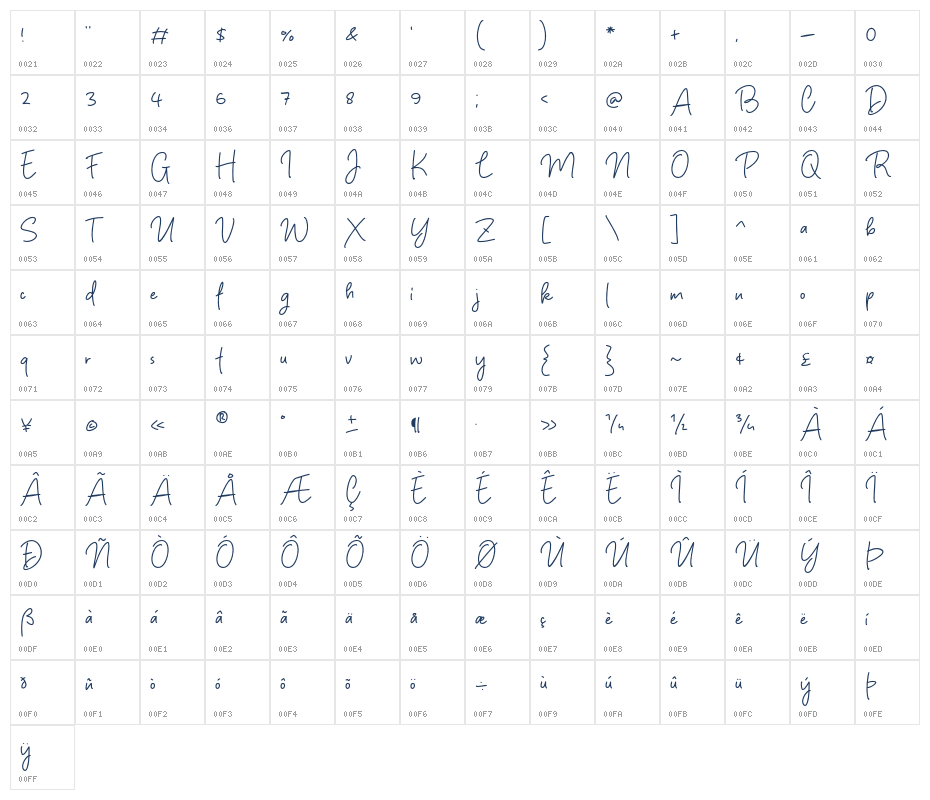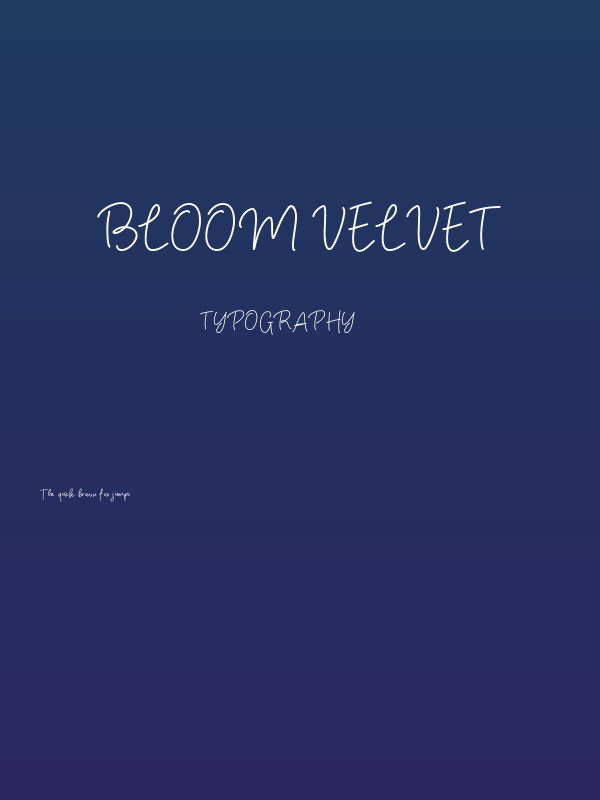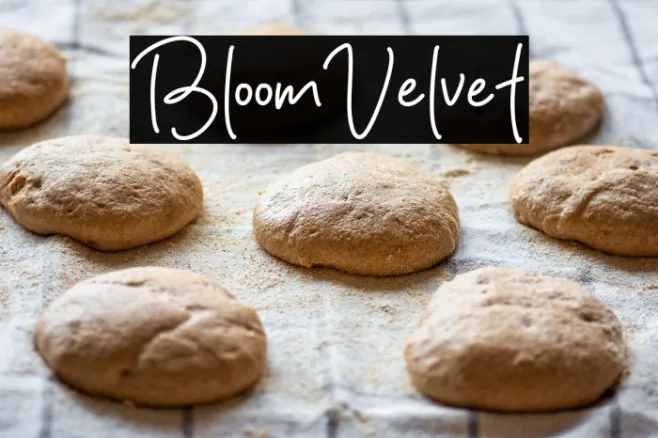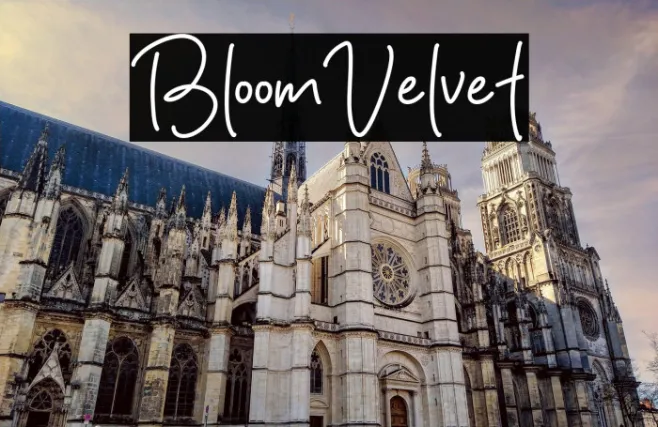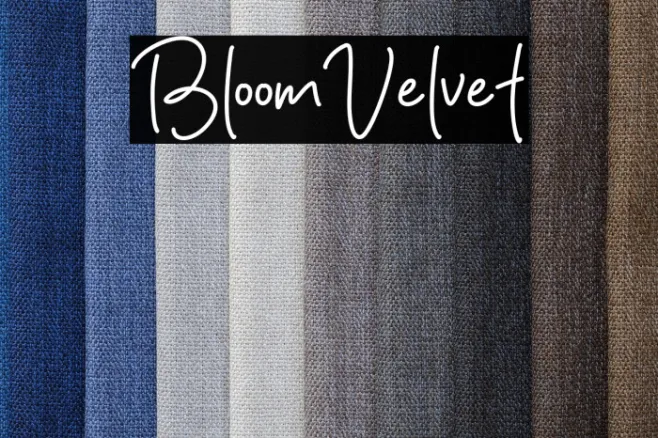
Bloom Velvet Font
Bloom Velvet Description
A handwritten, cursive script font with a casual and elegant style, featuring smooth, flowing lines and a slightly playful appearance.
| Overall Style | Casual, Elegant, Handwritten |
| Use Case | Invitations, Greeting Cards, Personal Branding, Logos, Decorative Headings |